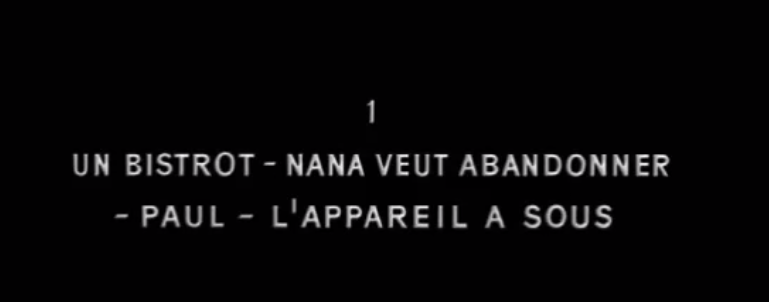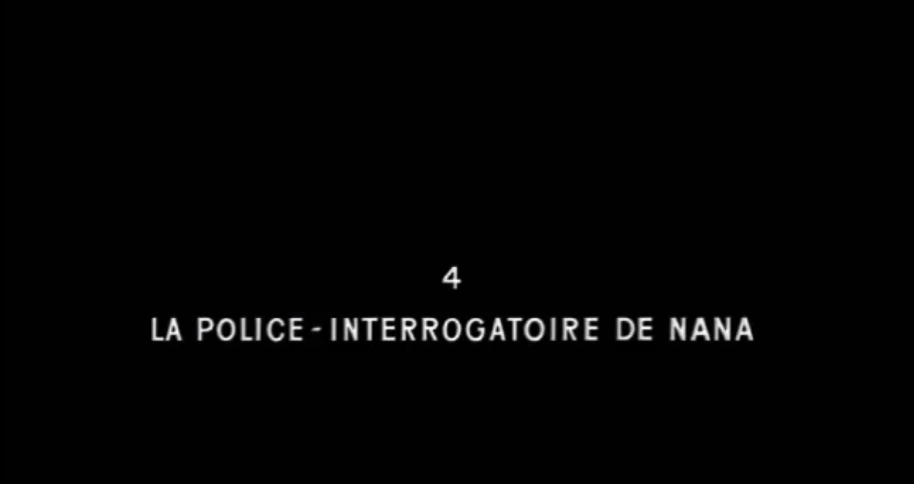
Similar to 'Roves Sans' but this is from an old movie. So it's whatever sans font that one is based on. Thank You!!
The movie is from 1962. It could possibly be some type of Futura, but the thin O is throwing me off.